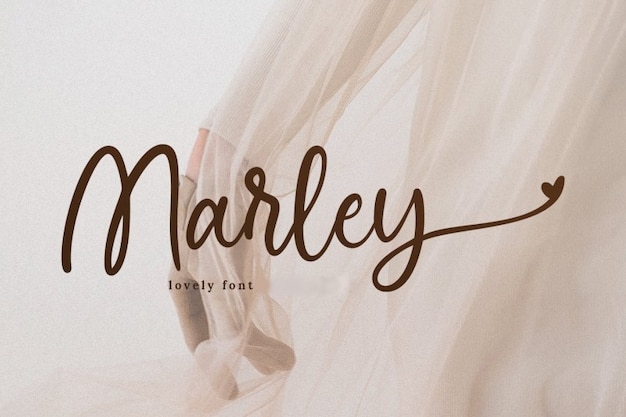
Marley Font
Marley is a font that beautifully combines the sweetness of handwritten lettering, making it the perfect choice for all things wedding. Its characters exude a delicate and personal touch, adding a sense of romantic charm to your text. Whether you're crafting wedding invitations, love notes, or any project that needs a dash of tenderness, Marley brings a unique and heartfelt quality. This font captures the essence of sweet and elegant lettering, making it an ideal choice for those who want to infuse their work with a touch of handcrafted love. Marley is where handwritten meets the romance of a wedding day, creating a heartfelt typeface that adds an extra layer of love and emotion to your designs.
Marley Regular (Lovely Script) (400)